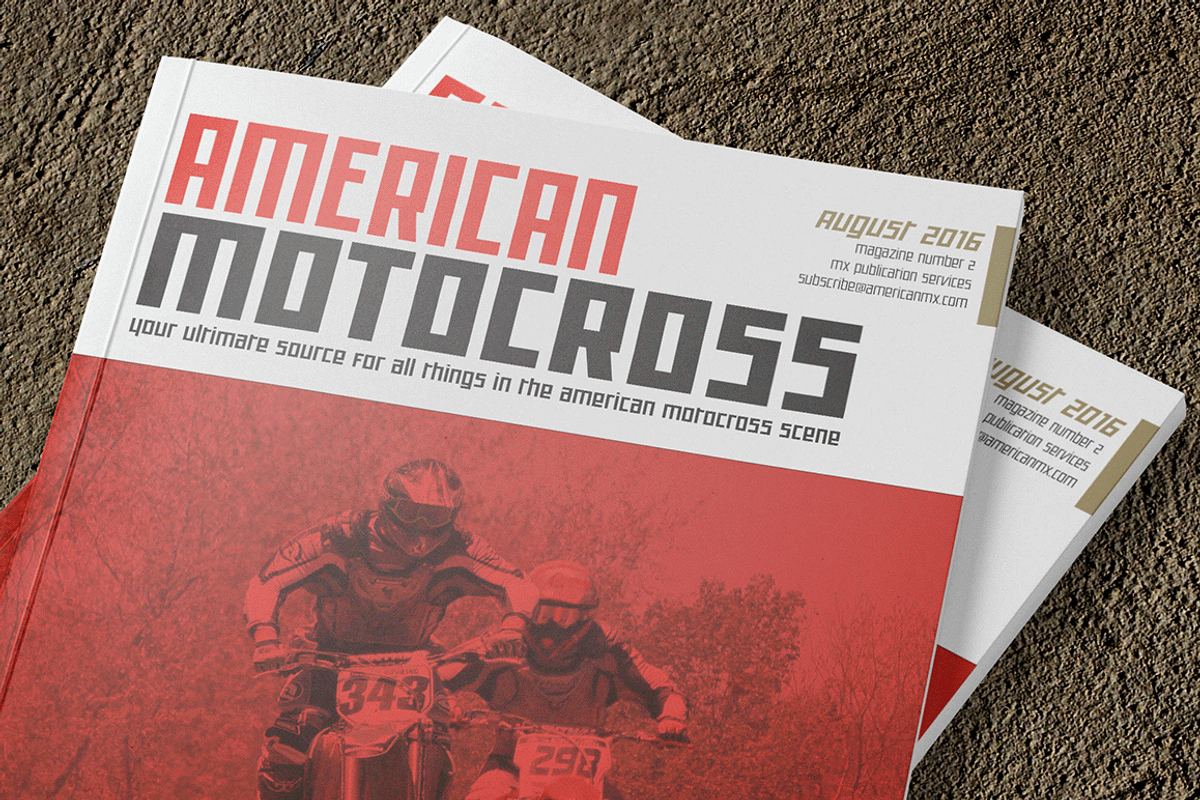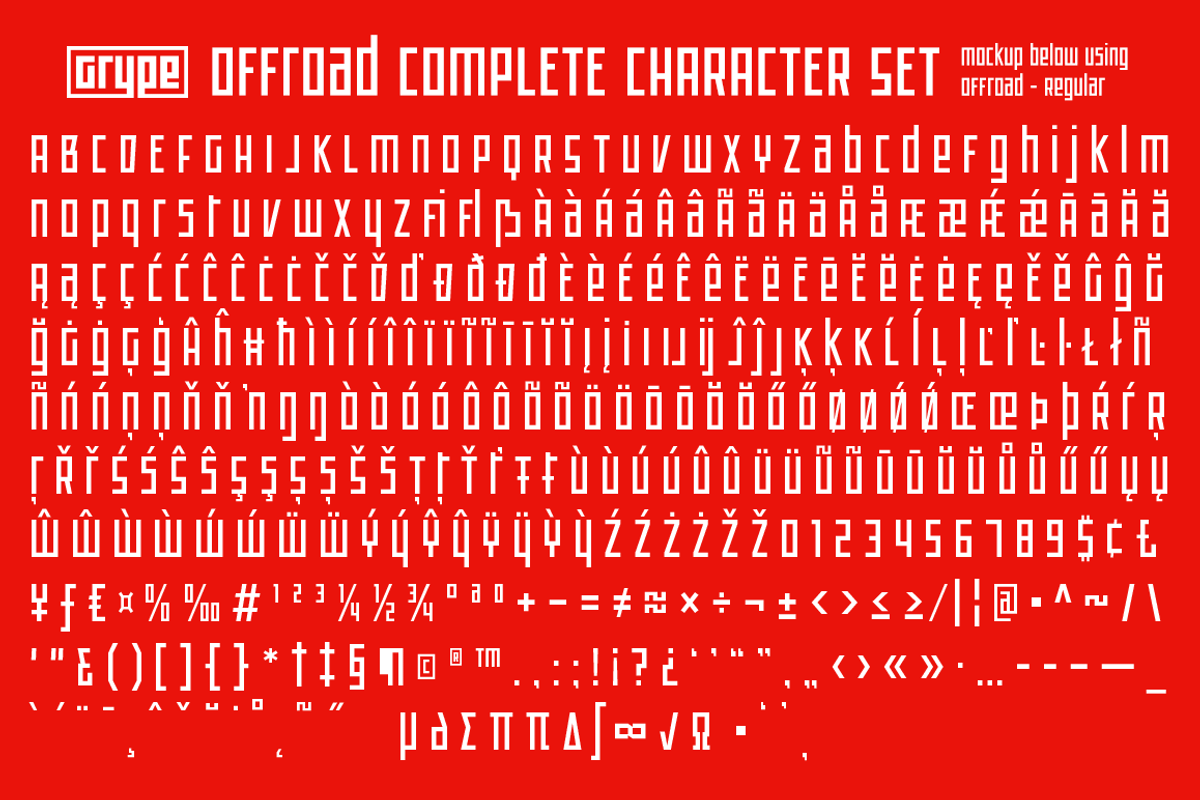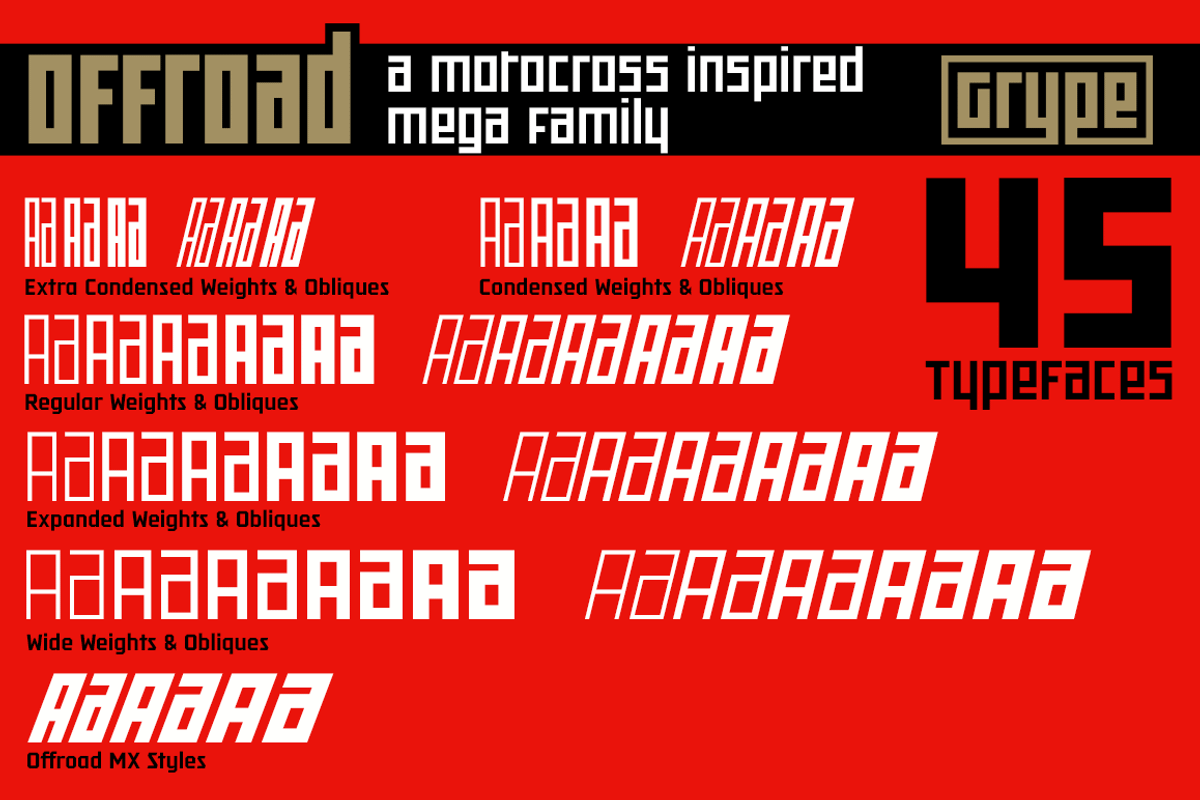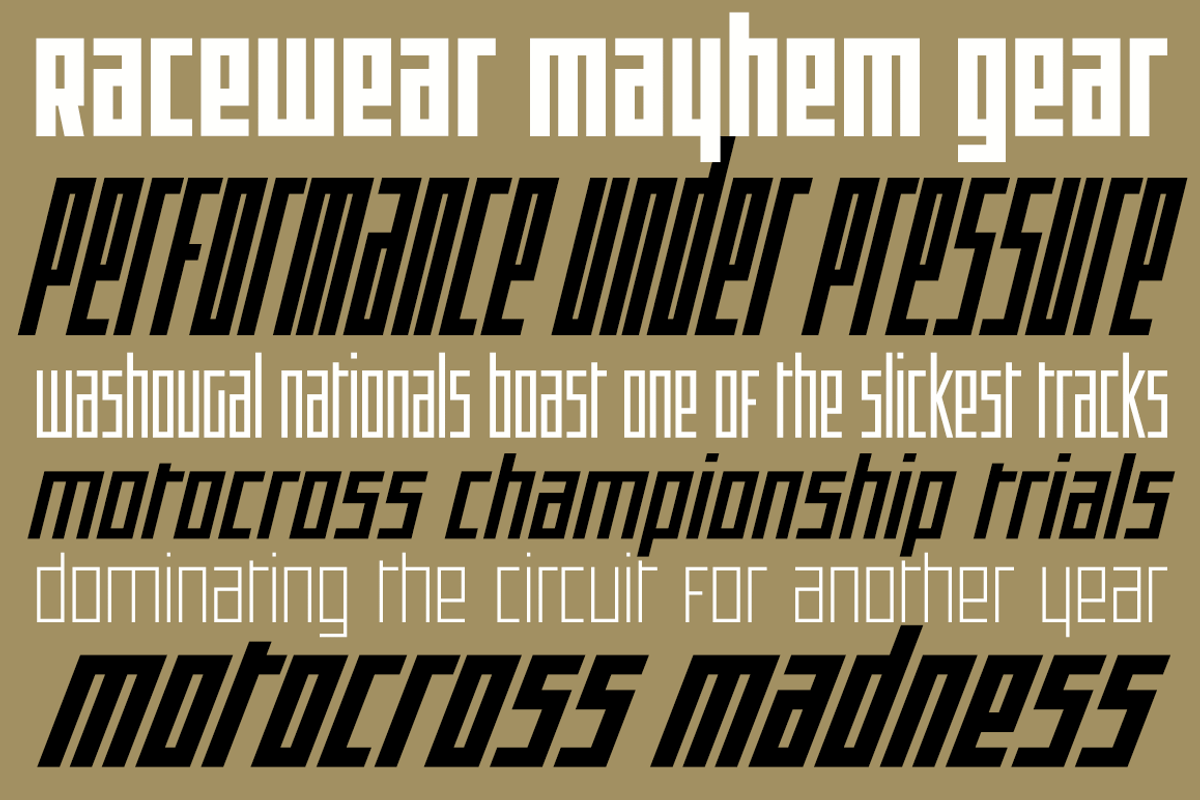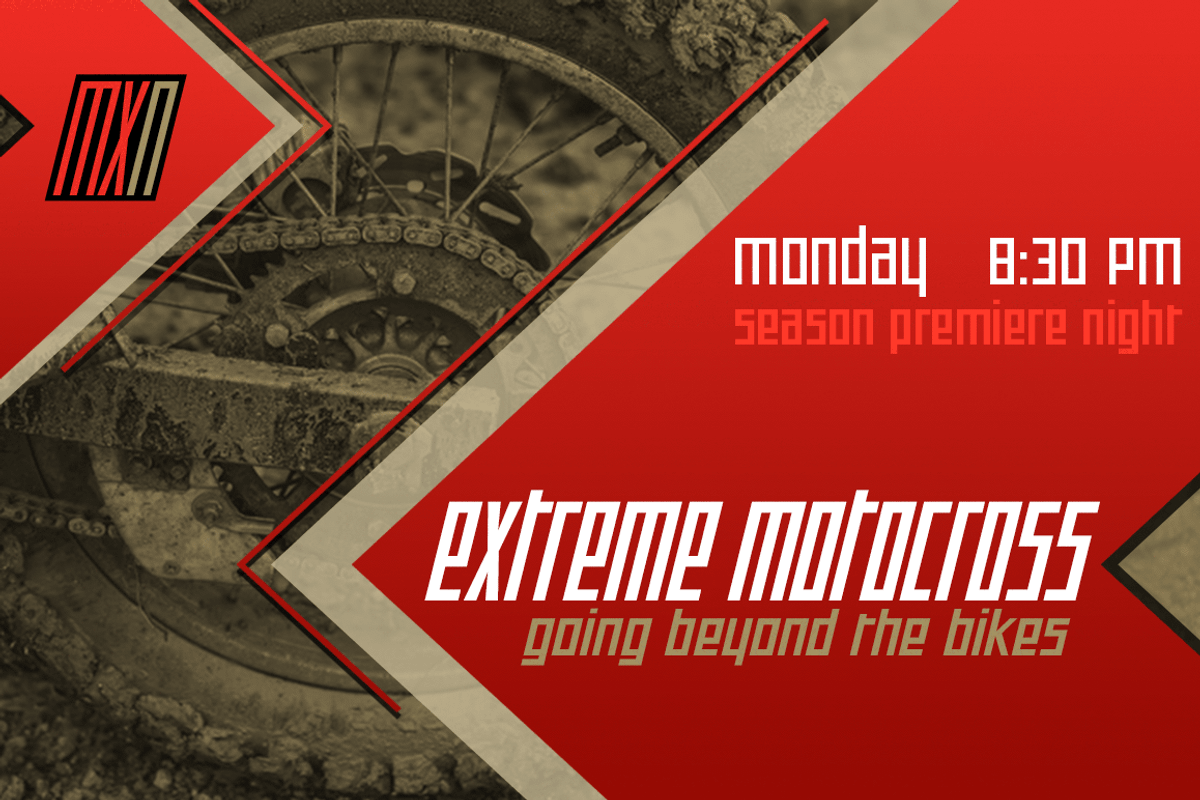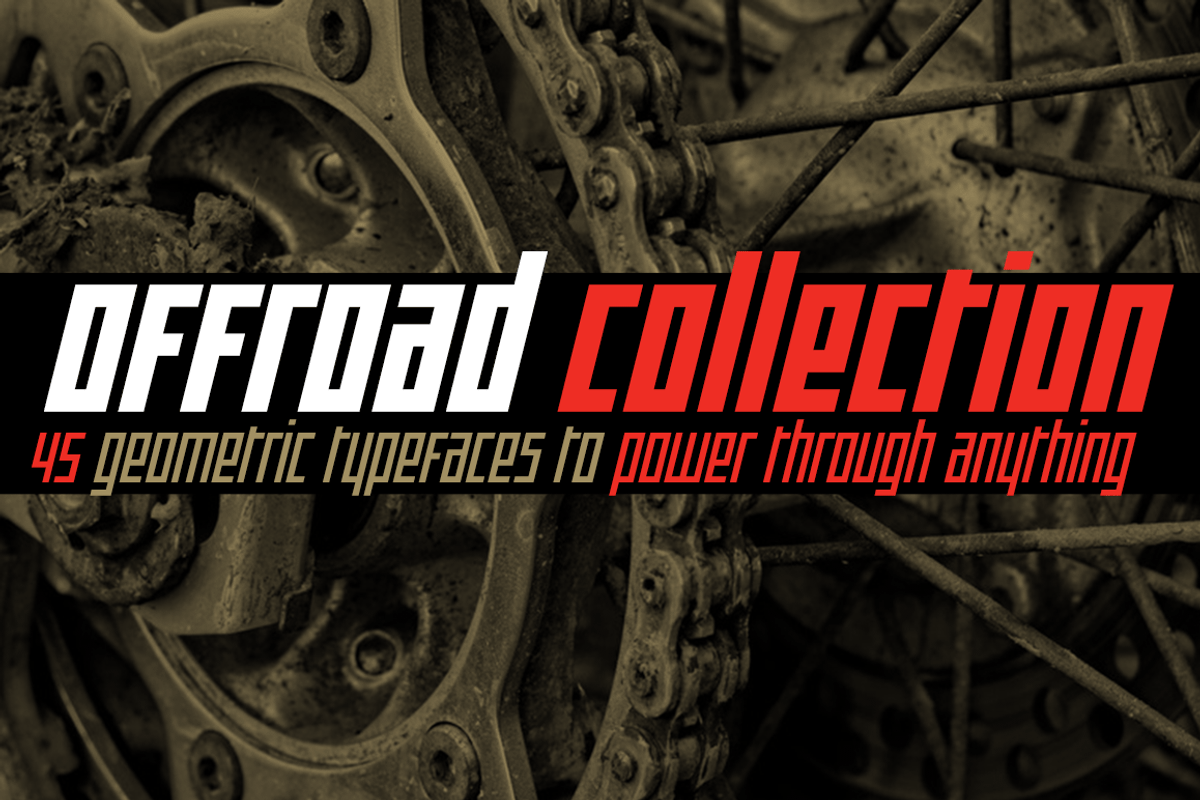
Offroad Collection
The Backstory Scoop
Geometric typefaces can harken back and visually tie themselves to so many genres, from constructivist posters, to techno club flyers, to raw industrial era power. The Offroad family finds its origin of inspiration in the O’Neal MX logo for their motocross division, represented in its truest form in the MX styles of this family, and expanded to a type megafamily.
Offroad grabs hold of that unique pseudo-unicase style and runs with it to create a range of widths and weights that are perfect for historical through modern use. It embodies the hardcore motocross rigidity from the limited inspiration of the original logotype and expands to include a full and expansive glyphset, and a comprehensive range of widths and weights, creating a straightforward, uncompromising collection of typefaces that lend a solid foundation and a broad range of expression for designers.
- 382 glyphs per style - including Capitals, Lowercase (Unicase Style), Numerals, Punctuation and an extensive character set that covers multilingual support of latin based languages. (see the 6th graphic for a preview of the characters included)
- 45 fonts in 6 width subfamilies: Extra Condensed, Standard, Expanded, & Wide.
- 5 weights per subfamily with obliques: Light, Book, Regular, Bold, & Black.
- You're in need of a geometric pseudo-unicase family with a big range of weights and widths
- You're a die-hard motocross fan, and want to design anything within that genre
- You're a club flyer designer, and need a kick-ass techno style font family
- You're totally into constructivist design, and want to create designs within that genre
- You just like to collect quality fonts to add to your design arsenal